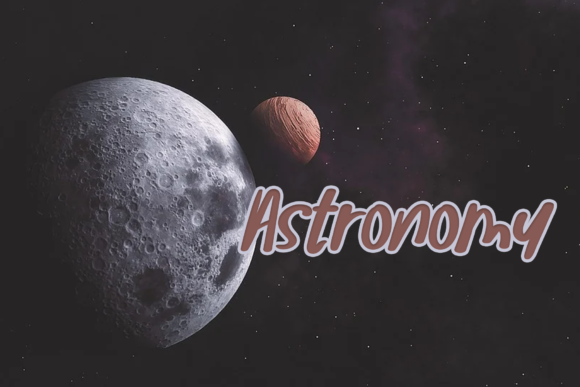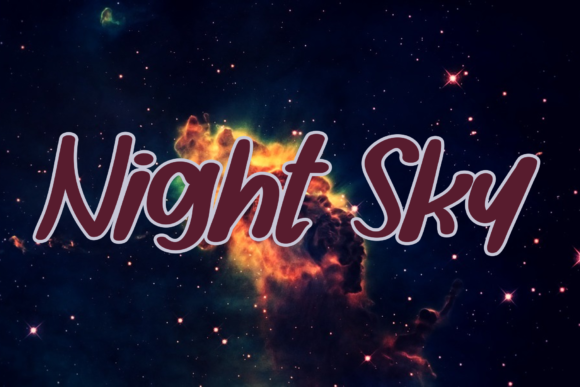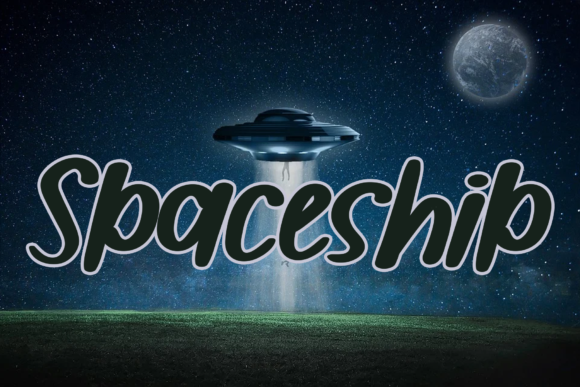
Introduction to Night Star Font
Have you ever been stuck on a creative project, struggling to find the perfect font to bring your design to life? I know I have. One night, while brainstorming ideas for a friend’s birthday party invitation, I stumbled upon the Night Star Font. Its cool, adaptable, and relaxed vibe instantly caught my attention, and I knew I had found the perfect design resource.
The Night Star Font is a high-quality display font that exudes youth and joy, making it a valuable asset for any designer working on a creative project. With its transparent background, it’s incredibly versatile and can be used in a variety of settings, from party invitations to social media graphics.
Key Features of Night Star Font
- High-quality design with a unique, cosmic aesthetic
- Transparent background for easy customization and composition
- Perfect for use in astronomy, space, or cosmic-themed designs, making it a valuable addition to any design library
Honest Review: Night Star Font
I recently had the chance to try out the Night Star Font for a creative project, and I must say it’s been a great addition to my design resource library. The high quality of the font is immediately apparent, with crisp and clean lines that make it perfect for a variety of applications.
One of the standout features of the Night Star Font is its transparent background, which makes it incredibly versatile and easy to use. Whether you’re working on a website, social media graphic, or print design, this font is a great choice.
- High-quality design with crisp lines and clean shapes
- Transparent background for easy use in various applications
- Great for creative projects, from website design to print materials
- May not be as comprehensive as some paid font libraries
Overall, I’m really impressed with the Night Star Font. Its high quality and versatility make it a valuable addition to any design resource library. While it may have some limitations, it’s a great choice for personal or non-commercial projects.
Tips for Getting the Most Out of Night Star Font
Experiment with different font sizes and colors to create a visually appealing effect. Use the font in combination with other design elements to add depth and interest to your project. Consider using the font in a creative project that requires a high-quality, modern look.
The Night Star Font is ideal for use in creative projects that require a high-quality, modern look. It is particularly useful for designing logos, branding materials, and marketing materials. The font’s transparent background makes it easy to use in conjunction with other design elements to create a unique visual effect.